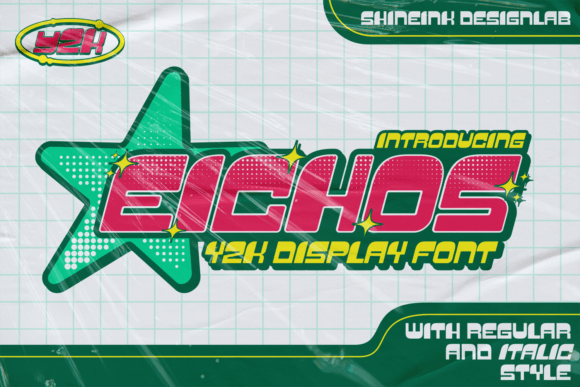
**Introducing Eichos: The Display Font That Will Ignite Your Designs**
Prepare to embark on a typographical adventure with Eichos, where science and creativity collide. This captivating display font, crafted by the brilliant minds at shineink.designlab, transcends the ordinary, empowering you to craft designs that resonate with your audience.
Imagine a font that effortlessly blends the precision of science with the warmth of human connection. Eichos is the embodiment of this harmony, featuring crisp, clean lines balanced by inviting, rounded edges. Its squarish silhouette exudes a modern flair that will elevate your designs to new heights.
Whether you're crafting eye-catching logos, memorable branding materials, or impactful headlines, Eichos is the font that will make your designs shine. Its bold and assertive presence commands attention, leaving a lasting impression on all who encounter it. Its versatility extends beyond scientific posters; Eichos effortlessly adapts to packaging, social media graphics, and any visual medium that demands impact.
Don't settle for fonts that blend into the background. Unleash the power of Eichos and watch your designs transform into captivating masterpieces. Its versatility knows no bounds, empowering you to experiment with limitless creative possibilities.
Step into the world of Eichos and elevate your designs to new heights. Experience the magic of a font that combines science, warmth, and unwavering impact. Let Eichos be your typographical guide, unlocking a world of creative freedom and unforgettable visual experiences.